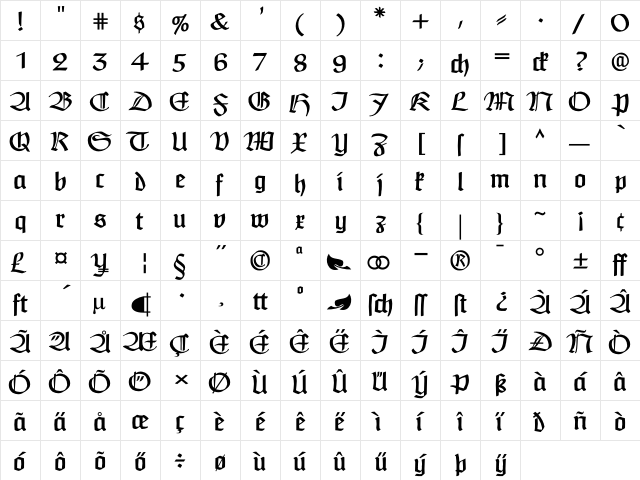
Claudius Alternate Regular
| Foundry | Typographer Mediengestaltung |
| Designer | Rudolf Koch. Digitalisiert durch Dieter Steffmann, Kreuztal |
| Year | 1937 |
| Copyright | Nach geschriebenen Vorlagen von Rudolf Koch stellte sein Sohn Paul Koch 1931-1934, also noch zu Lebzeiten seines Vaters, einen Grad der Schrift her; die uebrigen Grade wurden bis 1937 durch die Schriftgiesserei Gebr. Klingspor (Offenbach/M.) ergaenzt. |
Design Context for Claudius Alternate Typeface
Claudius Alternate is a composed and adaptable typeface that performs quietly and consistently across a wide range of design contexts.